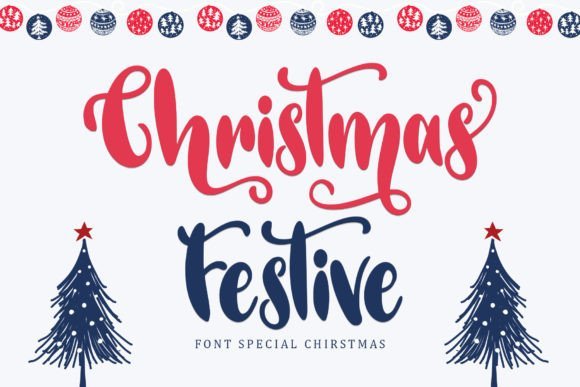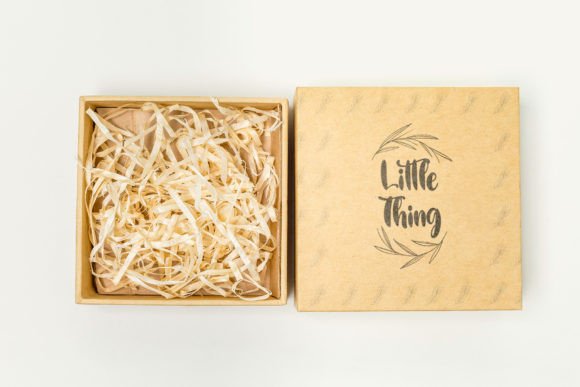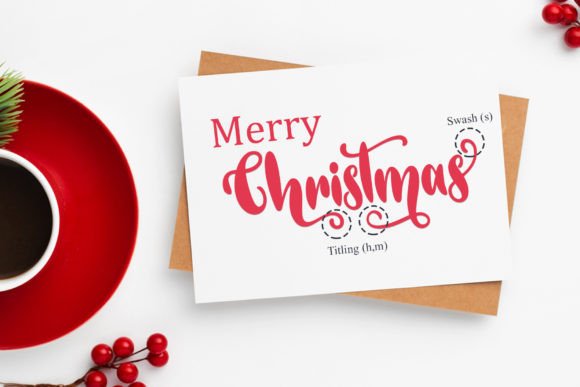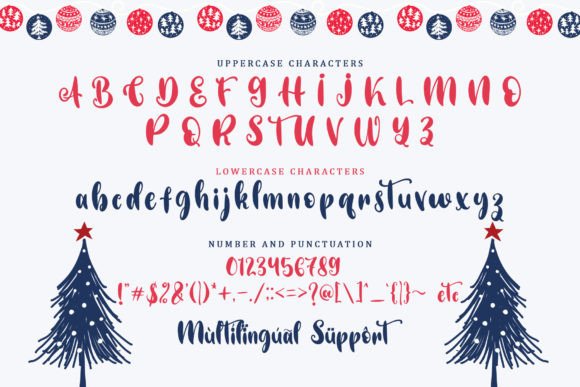
The Magic of Handwritten Script Fonts: Discovering Christmas Festive
Do you ever find yourself brainstorming ideas for a project, only to be stuck on the perfect font to bring it to life? I know I do! There’s something special about a handwritten script font that can elevate even the simplest designs into something truly magical. For me, it’s the perfect combination of whimsy and sophistication that makes a project truly unforgettable.
That’s why I’m excited to introduce you to the Christmas Festive Font, a sweet and adorable handwritten script font that’s sure to become a staple in your design library. Whether you’re creating holiday cards, gift tags, or simply want to add a touch of festive cheer to your designs, this font is the perfect asset to have at your disposal. With its versatility and charm, the Christmas Festive Font is a valuable addition to any designer’s toolkit.
Key Features of Christmas Festive Font
- Unique Characteristics: Decorative, festive, and playful design elements, including holly leaves, snowflakes, and Christmas trees
Christmas Festive Font Review
As a designer, I’ve had the chance to work with a variety of fonts, but the Christmas Festive Font is definitely a unique one. Here’s my honest review.
- It captures the spirit of Christmas perfectly, making it ideal for holiday-themed projects.
- The font is highly customizable, allowing you to adjust the size, color, and style to fit your design needs.
- The font is quite bold and eye-catching, which may not be suitable for all types of designs or branding.
- Some characters may not display properly in certain fonts or sizes, which can lead to inconsistent results.
Overall, I think the Christmas Festive Font is a great addition to any designer’s toolkit. While it has some limitations, its unique style and customization options make it a valuable resource for holiday-themed projects. With a little creativity and experimentation, you can get the most out of this font and create some truly festive designs.
The Christmas Festive Font is perfect for creating festive holiday cards, invitations, and posters. You can also use it to add a touch of holiday cheer to your social media graphics and website content.
For the best results, use the font in conjunction with festive graphics and colors to create a cohesive holiday look.